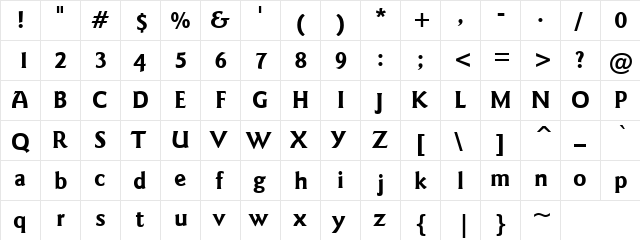
Kamana Regular
Design Context for Kamana Typeface
Kamana offers clean, dependable letterforms without strong stylistic allegiance, making it a practical choice for designers who need flexibility.